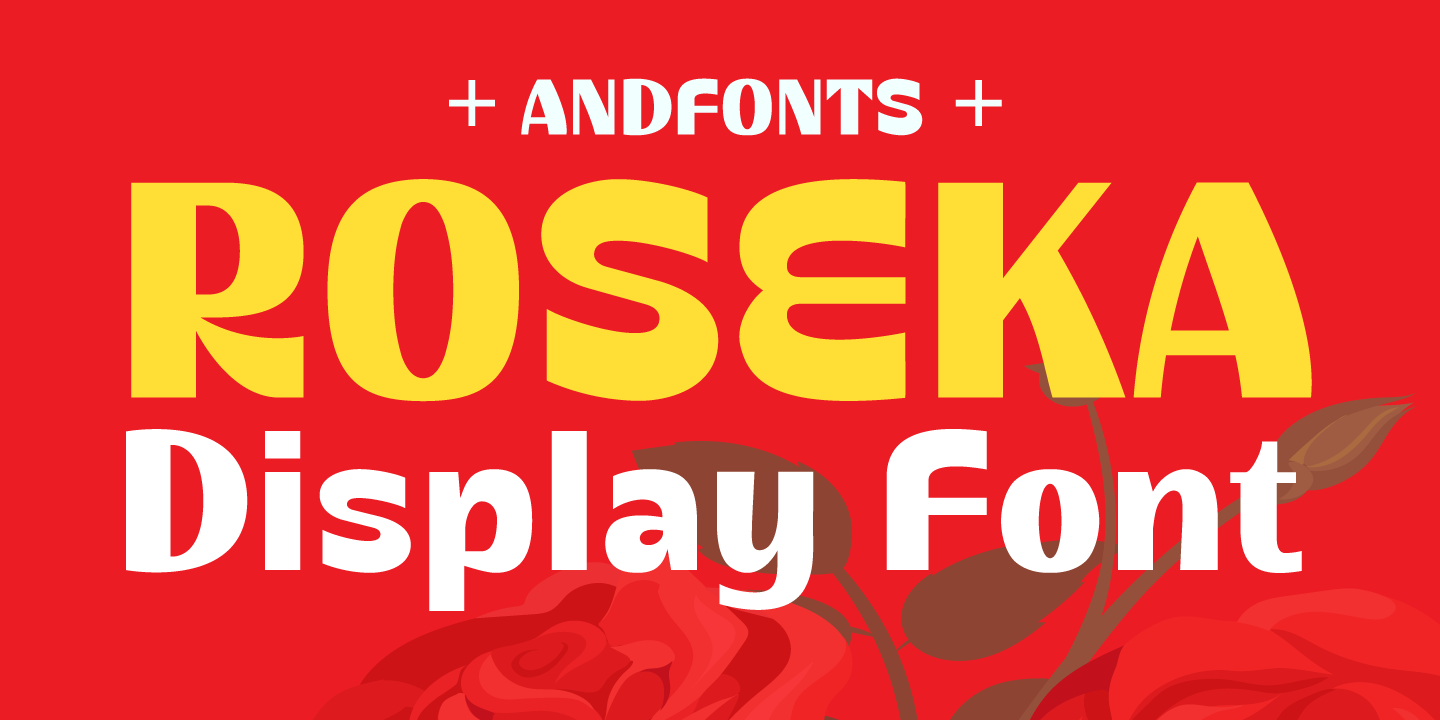
Roseka
Roseka is a display sans font family. This typeface has two styles and was published by Andfonts.
Meet "Roseka," the font that
This playful and funky typeface adds a dash of retro charm, making it the perfect choice for a wide array of projects.
Whether you
Unleash your creativity without limits – Roseka is the creative spark your projects need.
Displaying the beauty and characteristics of the Roseka font family.
Highlighting the Roseka font family.
Roseka font family sample image.
Roseka is a a two font family.
Roseka font family example.
Roseka font family sample image.
Meet “Roseka,” the font that’s here to infuse your designs with a burst of energy and creativity. This playful and funky typeface adds a dash of retro charm, making it the perfect choice for a wide array of projects. Whether you’re working on posters, social media graphics, or even reimagining vintage aesthetics,
Its whimsical letterforms give your text a unique personality, making it ideal for advertisements, branding, packaging, invitations, and more. Unleash your creativity without limits – Roseka is the creative spark your projects need.